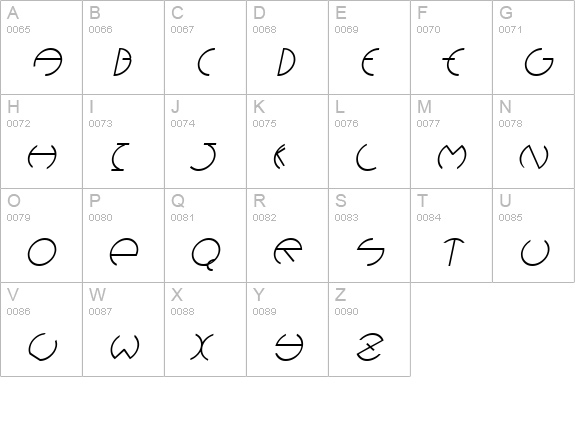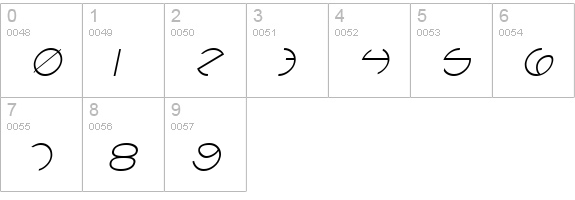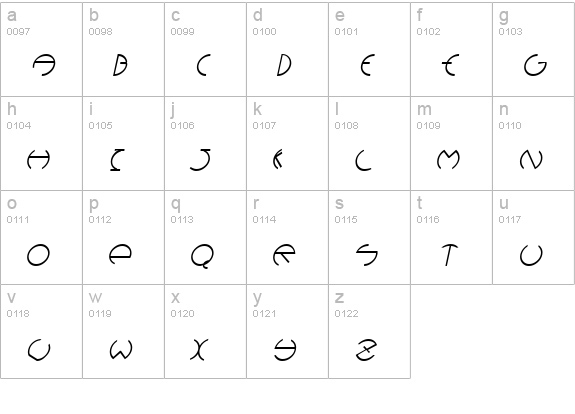
DebevicDeco Italic Font Details
DebevicDeco Italic is a distinctive, italic variant in the DebevicDeco typeface family \xE2\x80\x94 well suited to design and typography projects.
DebevicDeco Italic is a stunning and sophisticated font that exudes elegance and style. With its sleek lines and unique design, this font is perfect for adding a touch of class to any project. The italicized style adds a sense of flair and sophistication, making it a versatile choice for both professional and creative endeavors. What sets DebevicDeco Italic apart is not only its striking appearance but also the fact that it is available for free download at FontsMarket.com. This means that you can access this beautiful font without any cost, allowing you to elevate your designs without breaking the bank. Whether you're working on a branding project, a website design, or any other creative endeavor, DebevicDeco Italic is sure to make a statement. Download it today and add a touch of elegance to your work!